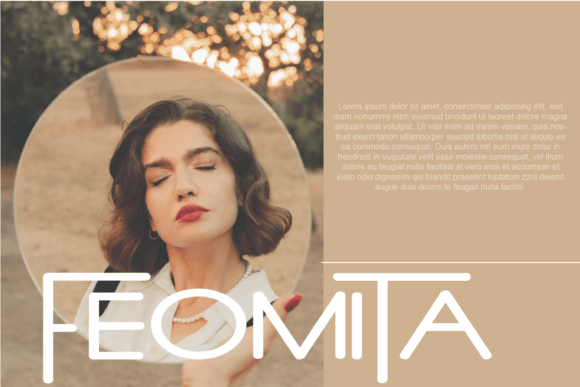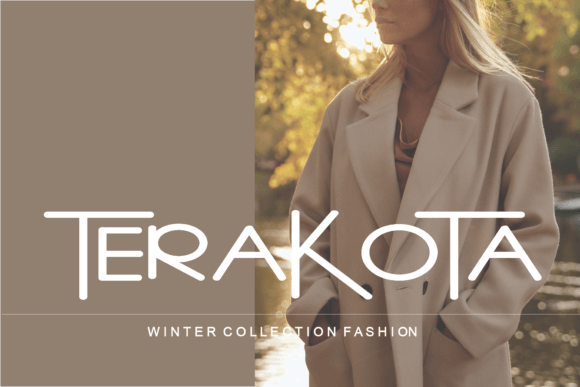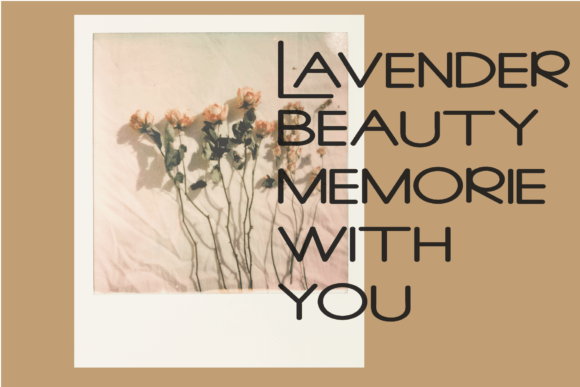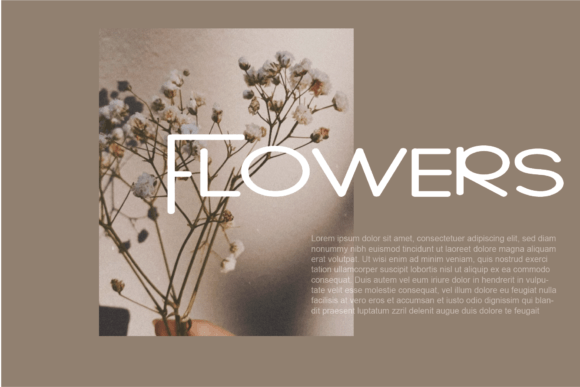
Elegant Font: Elevate Your Designs with Luxury and Sophistication
When it comes to creating visually stunning designs, the right typography can make all the difference. That’s where the Elegant Font comes in – a beautiful and distinctive typeface designed to add a touch of luxury to any project. With its attractive and refined appearance, Elegant Font is perfect for designers and crafters looking to elevate their creations and make a lasting impression.
The Characteristics of Elegant Font
Elegant Font is a carefully crafted typeface that exudes sophistication and glamour. Its unique design features smooth lines, flowing curves, and a refined aesthetic that instantly adds a touch of elegance to any text. Whether you’re working on packaging designs, fashion themes, fragrance designs, cosmetic designs, or social posts, Elegant Font is the perfect choice to convey a sense of luxury and refinement.
One of the standout features of Elegant Font is its versatility. This typeface can be used across a wide range of design projects, from high-end branding and advertising to digital media and print materials. Whether you’re creating a logo, brochure, or social media post, Elegant Font can be used with confidence to add a touch of sophistication and glamour.
Elegant Font is a must-have for designers and crafters looking to take their creations to the next level. With its ease of use and flexibility, this typeface can be seamlessly integrated into any design project. Whether you’re a seasoned designer or a DIY enthusiast, Elegant Font provides the perfect opportunity to add a professional touch to your work and make it stand out from the crowd.
Amazing Results Guaranteed
When you use Elegant Font in your designs, you can expect amazing results. This typeface has been carefully crafted to deliver exceptional clarity and readability, ensuring that your message is conveyed with precision and style. Whether you’re looking to create a lasting impression or simply want to add a touch of elegance to your designs, Elegant Font is the perfect choice.
Use Cases for Elegant Font
Elegant Font can be used in a variety of design projects, including:
- Packaging designs: Add a touch of luxury to your product packaging with Elegant Font.
- Fashion themes: Create stunning fashion designs with Elegant Font, perfect for branding, advertising, and editorial projects.
- Fragrance designs: Elevate your fragrance branding with Elegant Font, adding a touch of sophistication and glamour.
- Cosmetic designs: Use Elegant Font to create beautiful and eye-catching cosmetic designs that stand out from the crowd.
- Social posts: Add a touch of elegance to your social media posts with Elegant Font, perfect for creating engaging and shareable content.
Tips for Using Elegant Font
To get the most out of Elegant Font, here are a few tips to keep in mind:
- Use it sparingly: Elegant Font is a statement typeface, so use it sparingly to add emphasis and create visual interest.
- Pair it with other fonts: Experiment with pairing Elegant Font with other fonts to create a unique and visually appealing typography combination.
- Adjust the size and color: Play with the size and color of Elegant Font to create a customized look that suits your design.
| Font Name | Elegant Font |
| Author | hl_studio |
In conclusion, Elegant Font is a stunning typeface that can elevate any design project to new heights. With its luxurious appearance, versatility, and ease of use, Elegant Font is perfect for designers and crafters looking to add a touch of sophistication and glamour to their creations. So why wait? Try Elegant Font today and see the amazing results for yourself!